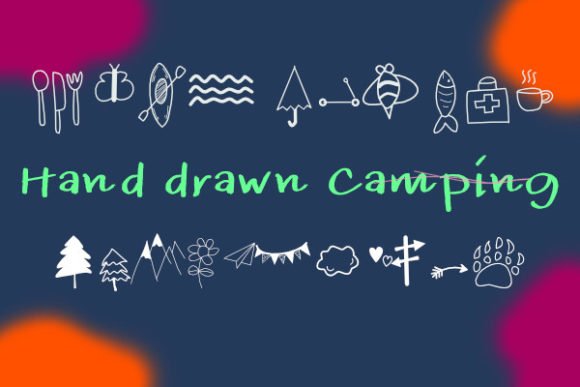
The Perfect Camping Trip for Your Design
Remember the feeling of excitement as you rummage through your childhood camping trunk, unearthing old favorites and forgotten treasures? For designers, that thrill is often found in discovering the perfect font to match their creative vision. And what better way to evoke a sense of adventure and the great outdoors than with the Hand Drawn Camping Font?
This lovely dingbats font is more than just a pretty face – it’s a versatile tool for any designer looking to add a touch of whimsy to their projects. Whether you’re creating a rustic wedding invitation, a outdoor-themed newsletter, or simply a personalized letterhead, the Hand Drawn Camping Font is sure to bring a smile to your face and a touch of personality to your design.
Hand Drawn Camping Font Key Features
- Unique Hand-Drawn Design: This font features a unique, hand-drawn design that adds a personal touch to any camping or outdoor-themed project.
- Full Character Set: Includes a full character set, including uppercase and lowercase letters, numbers, and punctuation marks, making it suitable for a wide range of applications.
Hand Drawn Camping Font Review
I recently had the chance to work with the Hand Drawn Camping Font, and I must say it’s a mixed bag. Let’s start with what works well: ✨ It’s perfect for creating a rustic, outdoorsy vibe, and the font is super versatile – it can be used for everything from camping gear logos to outdoor adventure websites. The font is also incredibly easy to read, even at smaller sizes.
- ✨ Unique and eye-catching aesthetic
- ✨ Highly versatile and suitable for a variety of applications
- ✨ Easy to read, even at smaller sizes
However, there are some limitations to consider: ⚠️ The font is quite simplistic, which can make it feel a bit generic at times. Additionally, the character set is limited, so you may find yourself needing to create custom characters or workarounds in certain situations.
- ⚠️ Limited character set
- ⚠️ Can feel generic at times
Overall, I’d say the Hand Drawn Camping Font is a solid choice for projects that require a rustic, outdoorsy feel. While it may not be the most sophisticated font, it’s easy to use and gets the job done. Just be aware of its limitations and plan accordingly.
The Hand Drawn Camping Font is perfect for:
- Camping and outdoor-themed designs.
- Food and drink menus.
For the best results, use the font in combination with distressed textures and earthy colors to create a rustic and natural look.